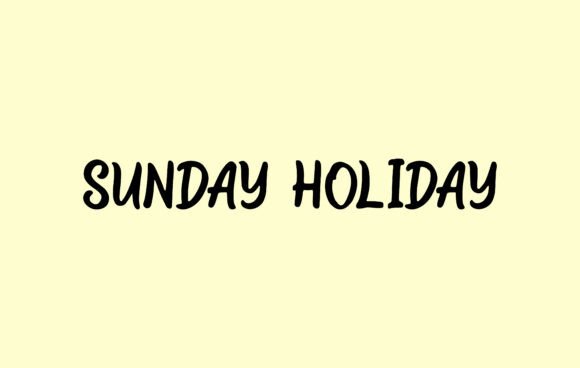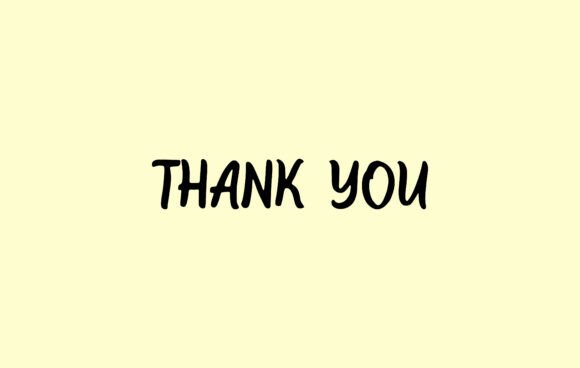
The Perfect Note: Unveiling the Bassoon Font
Have you ever been brainstorming ideas for a design project, and suddenly, a spark of creativity hits you? It’s that moment when everything falls into place, and you know exactly which font will bring your concept to life. For many designers, this moment is often linked to the Bassoon Font – a bold and smooth display script font that exudes a playful personality and a brush-style finish.
Bassoon Font is a versatile tool designed to add a touch of retro charm to your projects. Whether you’re working on logos, branding, packaging, signage, or eye-catching headlines, this font is sure to make a lasting impression. Its clean, readable structure and all-caps form make it an excellent choice for both modern and vintage-inspired projects. By incorporating the Bassoon Font into your design, you’ll be able to add energy and bold character that stands out in both digital and print designs.
Bassoon Font Key Features
- Unique Characteristics: Bassoon Font features a unique, hand-drawn design with a distinctive calligraphic feel, making it ideal for creative and artistic applications.
- Script and Style Options: The font includes a range of script and style options, including italic, bold, and condensed styles.
Bassoon Font Review
I’ve been playing around with the Bassoon font, and overall, it’s a unique and interesting choice. ✨ One thing that works well is its versatility. It can be used for both body text and headings, which makes it a great all-around option. The font also has a nice balance between modernity and classic style, making it suitable for a wide range of projects.
Another positive aspect is the font’s legibility, which is excellent even at smaller font sizes. This makes it a great choice for digital applications where text needs to be easily readable.
While the Bassoon font has many great qualities, there are a few limitations to consider. ⚠️ One of the main issues is its limited character set. The font is missing some common symbols and punctuation marks, which can be a problem if you need to use them frequently.
- Limited character set
In conclusion, the Bassoon font is a solid choice for designers looking for a unique and versatile font. While it may have some limitations, its strengths outweigh its weaknesses, making it a great addition to any font collection.
Some tips for getting the most out of the Bassoon font include using it for titles, headings, and body text in creative projects, such as graphic design, illustration, and typography-based art.
Common use cases for the Bassoon font include magazine and newspaper headlines, posters, and social media graphics.